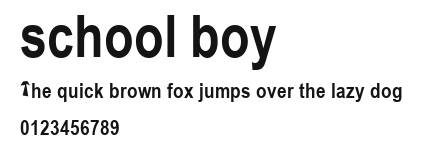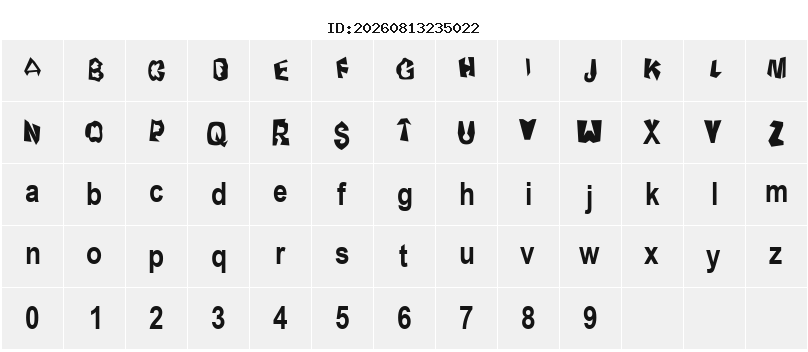
• Font Name: school boy
• Font Style: Gras
• Full Font Name: Arial Narrow Gras
About school boy.ttf
school boy.ttf is a modern, elegant sans-serif font designed for ultimate readability and visual harmony. Perfect for branding, headlines, web design, and print materials.